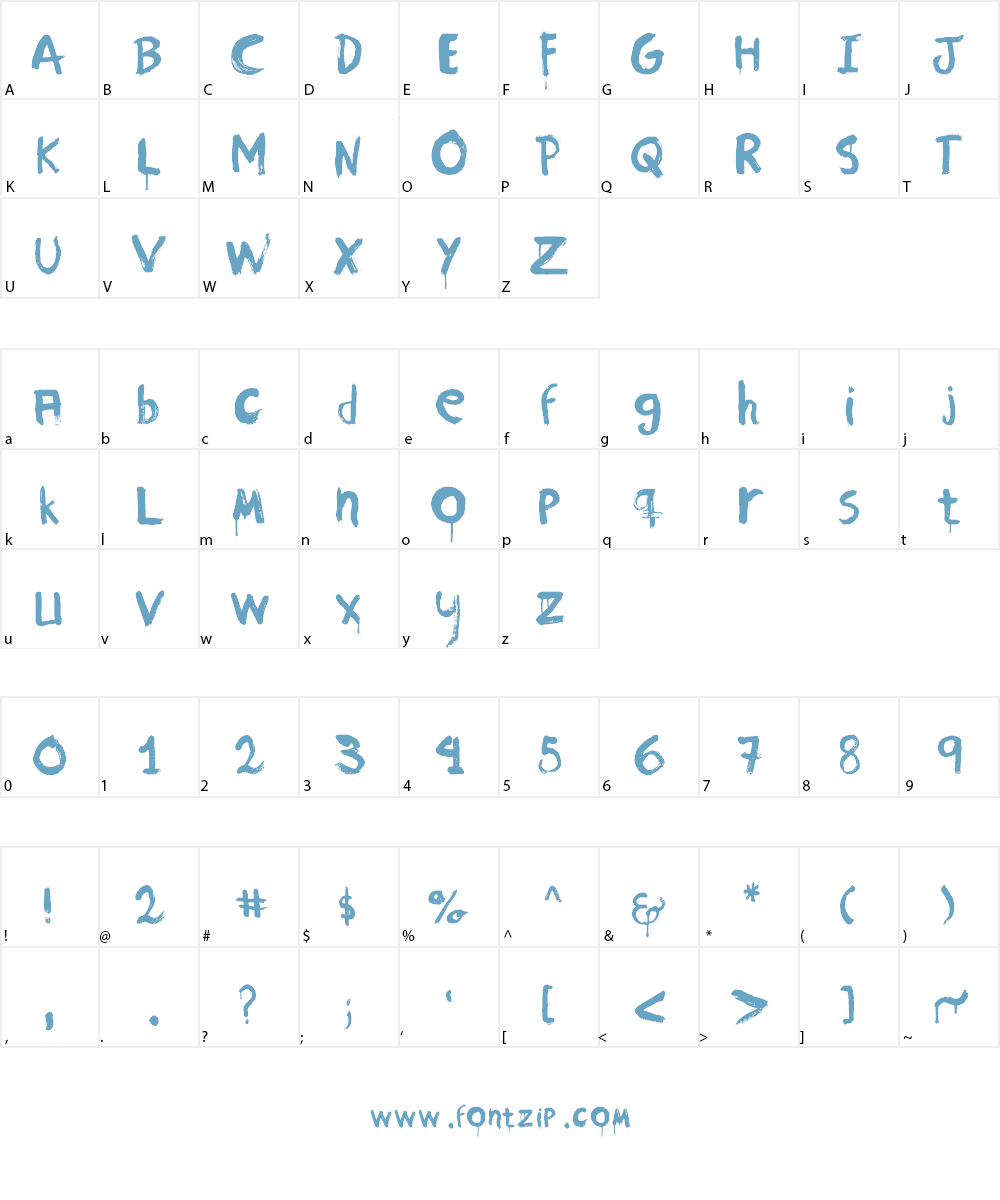
Memory of War Beta 1 is a display brush typeface inspired by public asphalt hand painted signs of Cuban dissidents and pro goverment officials. Each character has been individually painted vertically in black ink simulating the nature of the street writing it is based upon. It features upper and lower case characters, numerals, and punctuation including the Spanish alphabet glyphs. This font also includes special glyhps with splatters and drips textures. Eventhough its made as a display style , it is also readable in smaller font sizes.
Memory of War Beta 1 es una fuente de la familia “display brush” inspirada en los letreros publicos pintados a mano por la disidencia cubana y por agentes del oficialismo político. Cada letra ha sido pintada individualmente con tinta negra, replicando los métodos de creación y simulando las formas de los letreros en los cuales se basan. La fuente incluye mayúsculas, minúsculas, números, y también caracteres del alfabeto español. También están incluidas varias texturas de estilo `salpicadura y goteo de asfalto´. Aunque esta fuente es de la familia display, es legible en tamaño de texto pequeño.